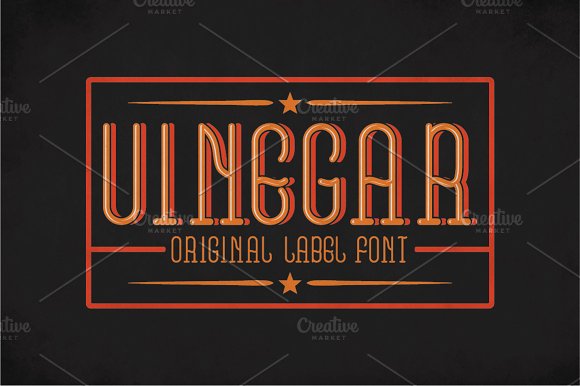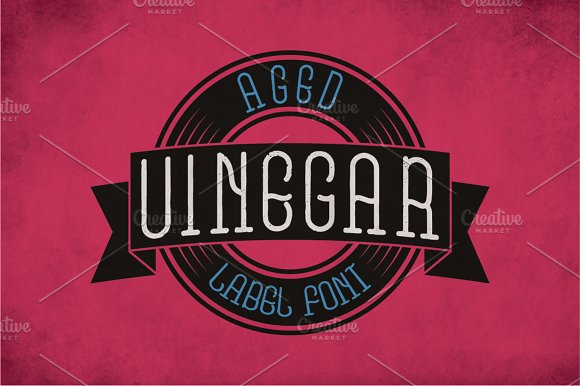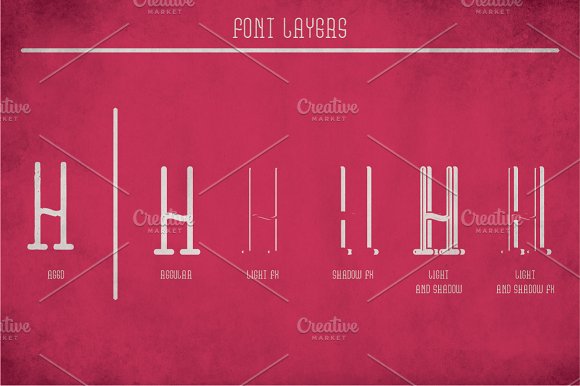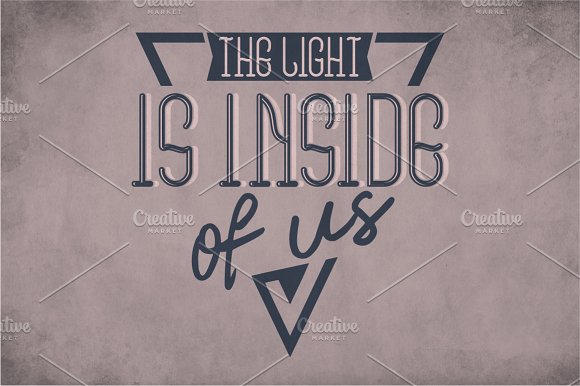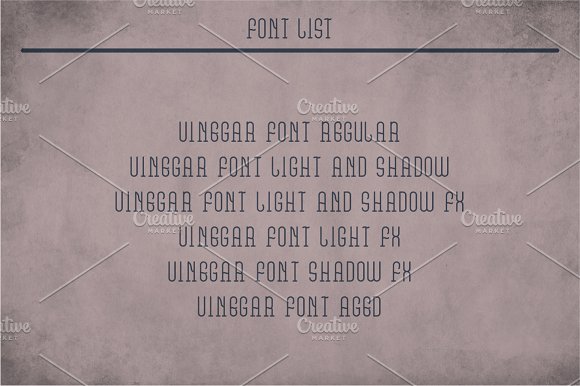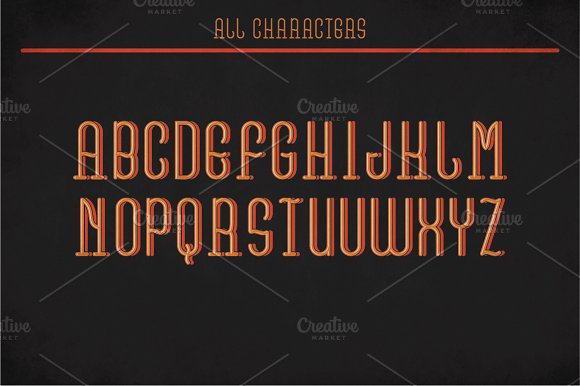
Vinegar Vintage Label Typeface
Introducing a vintage look label typeface named “Vinegar”. It’s made in strong and vintage label style. Typeface is good viewed on any labels design.
5 fonts in complect (with special effects), plus aged version
You can mix effects (look at 4-th screenshot)